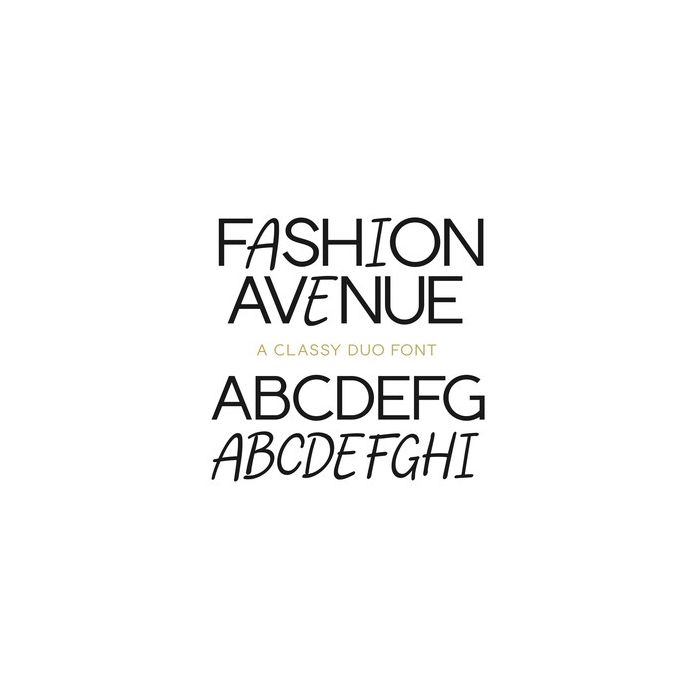
Fashion Avenue is a chic font - created with both handwritten letters and a polished sans serif.
This font includes a sans font and a full set of handwritten letters. To use the sans font, type in all capital letters. To use the handwritten font, type in all lowercase letters. This font is unique because both the sans and handwritten letters flow seamlessly with each other. To create your own chic look, use a combination of both capital and lowercase letters.